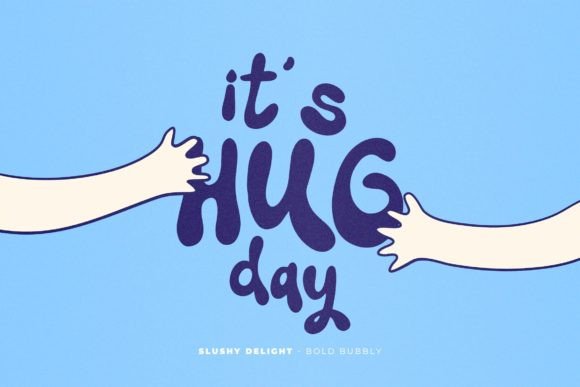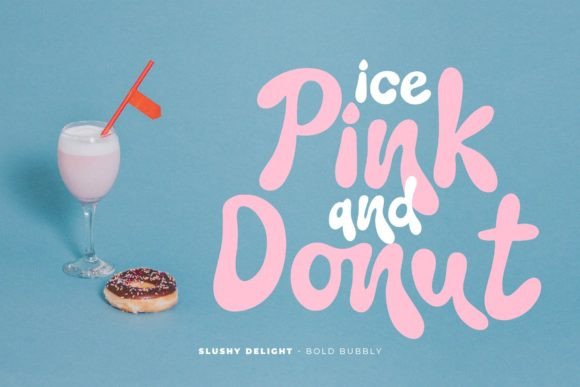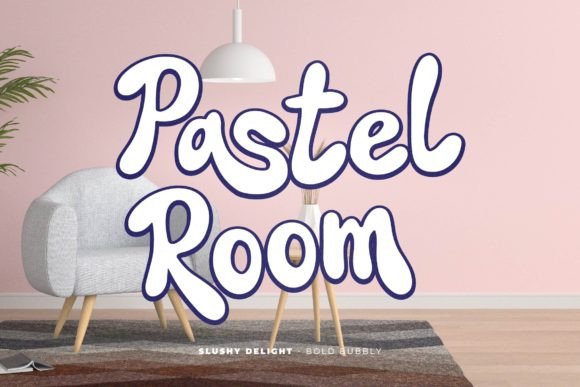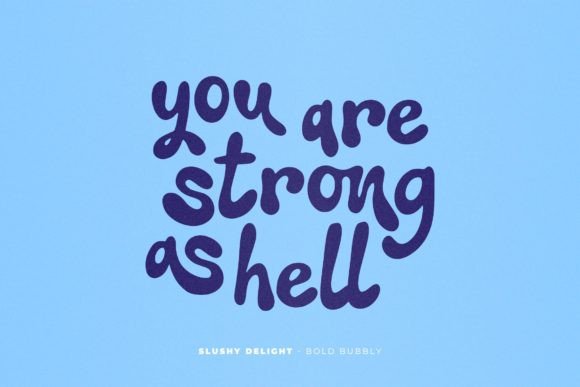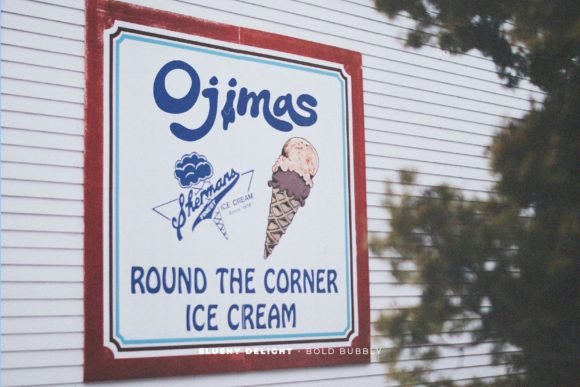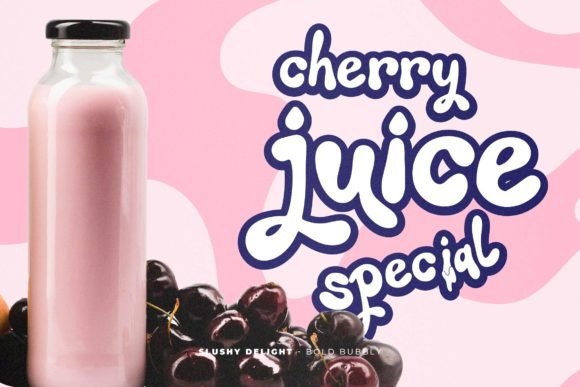
Introduction to Slushy Delight Font
Slushy Delight is a fun, bold, and bubbly font.
Its thick, rounded letters give it a playful and cheerful look, perfect for designs that need a lively and energetic feel Ideal for kids’ projects, party invitations, or anything that needs a touch of excitement.